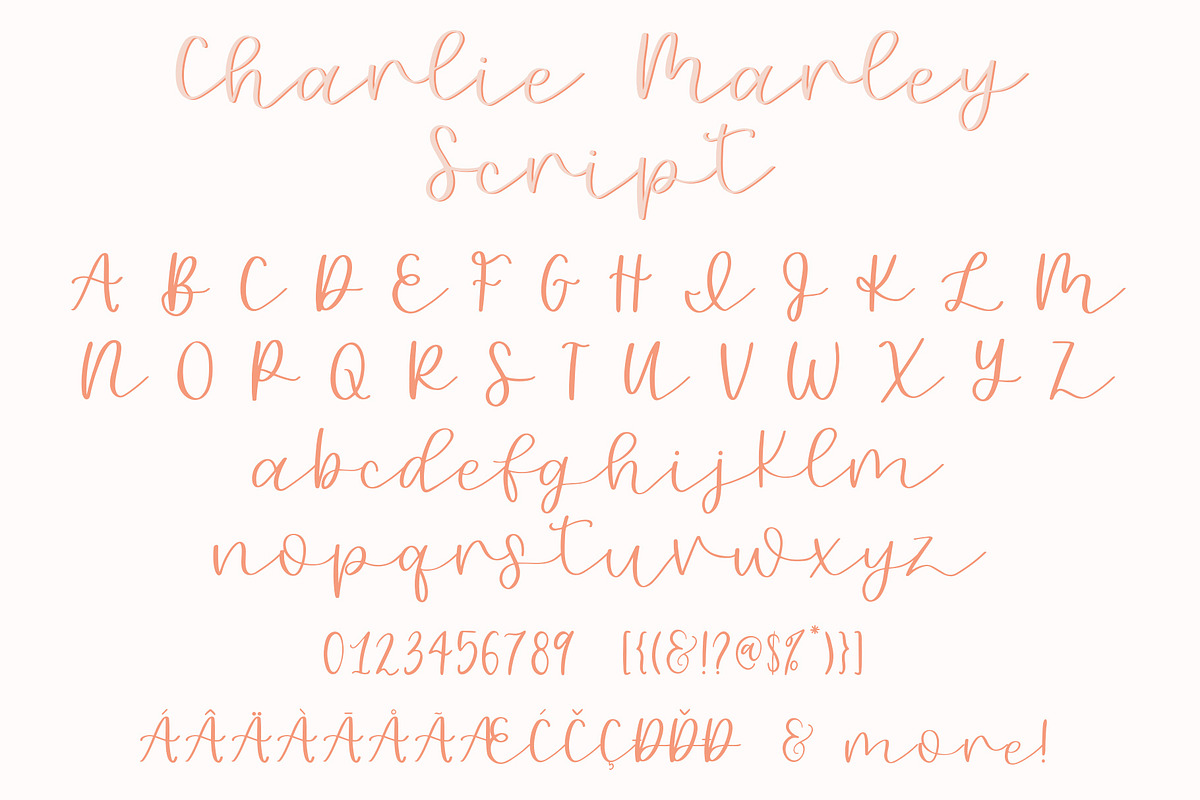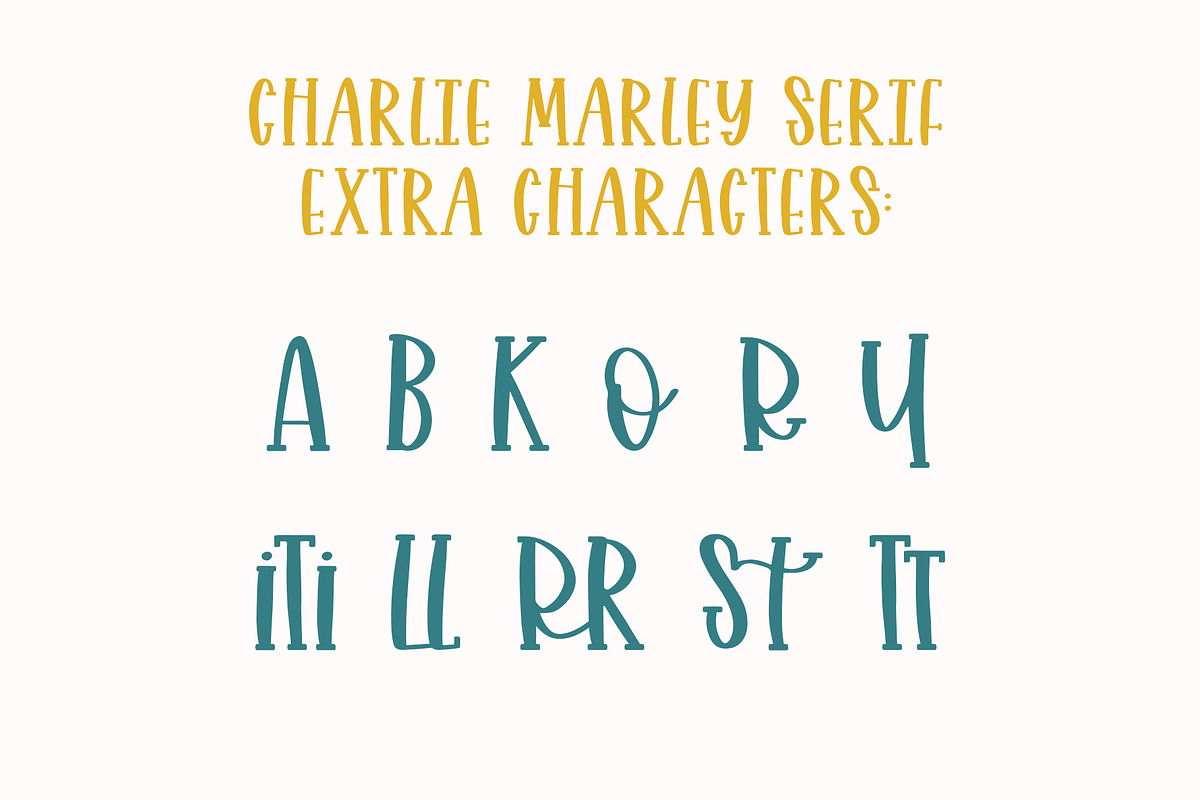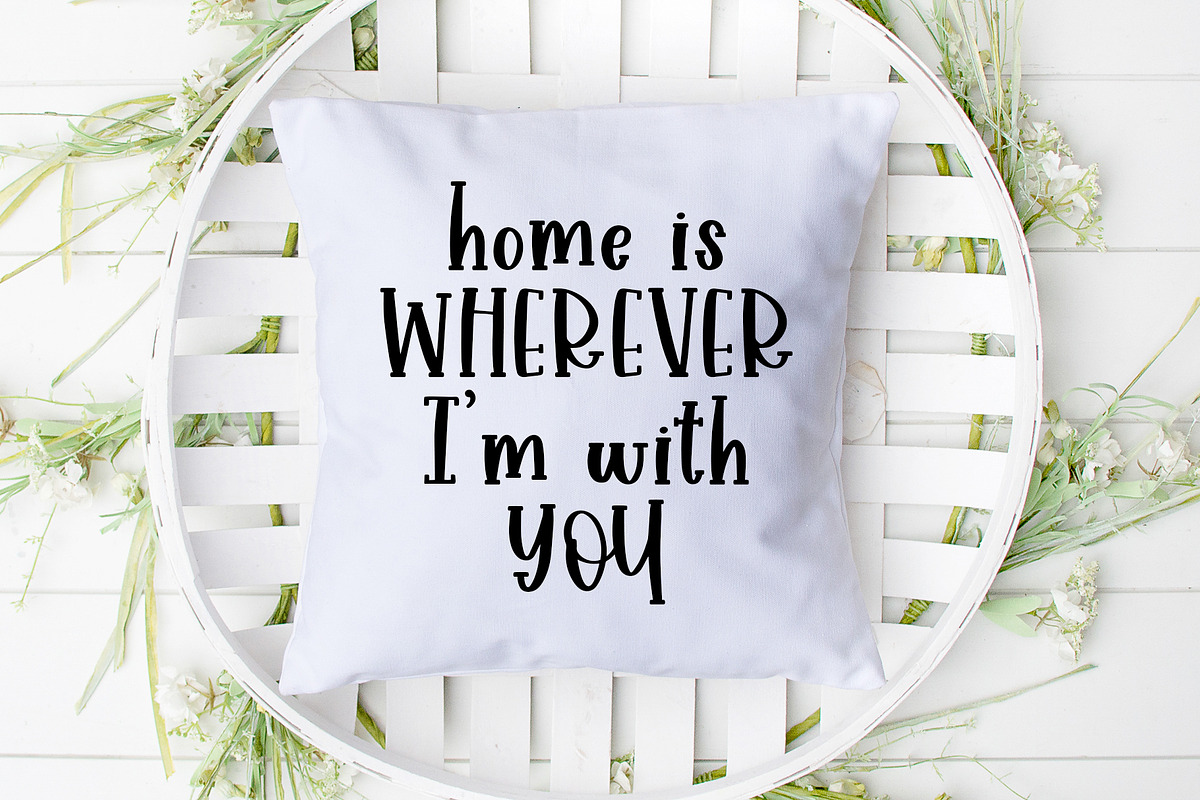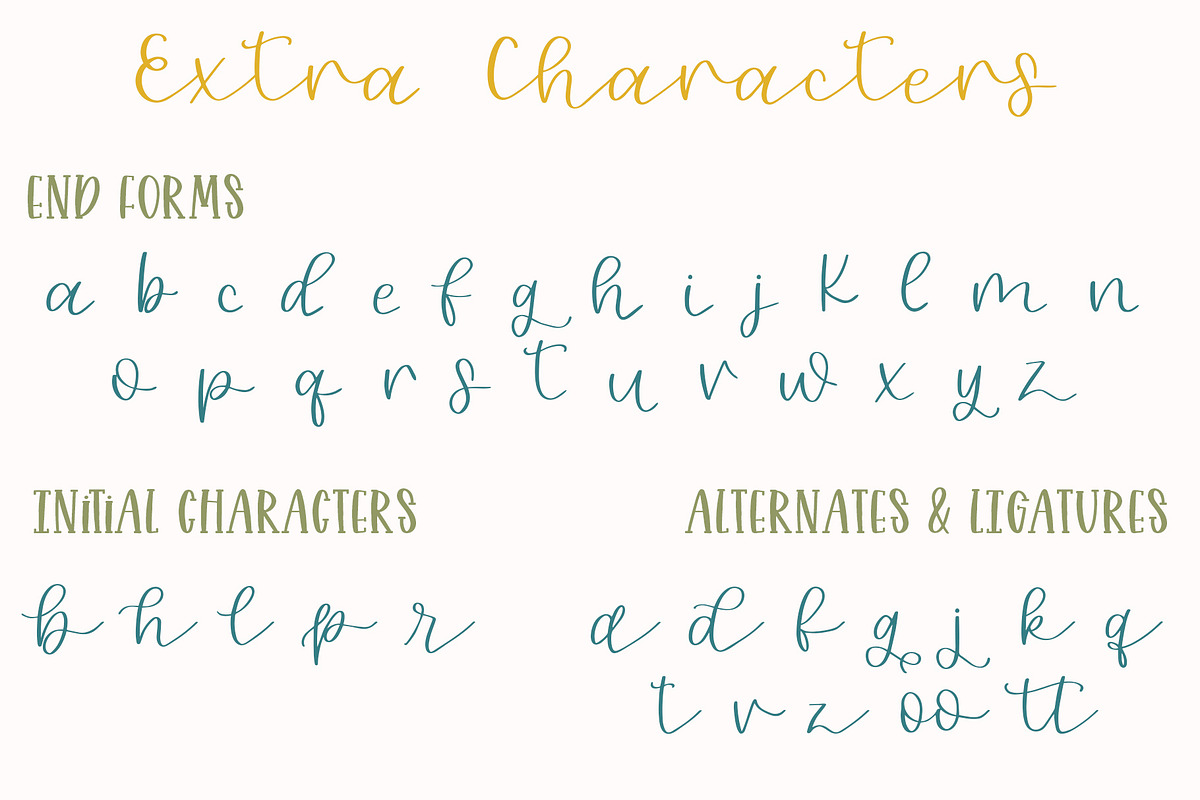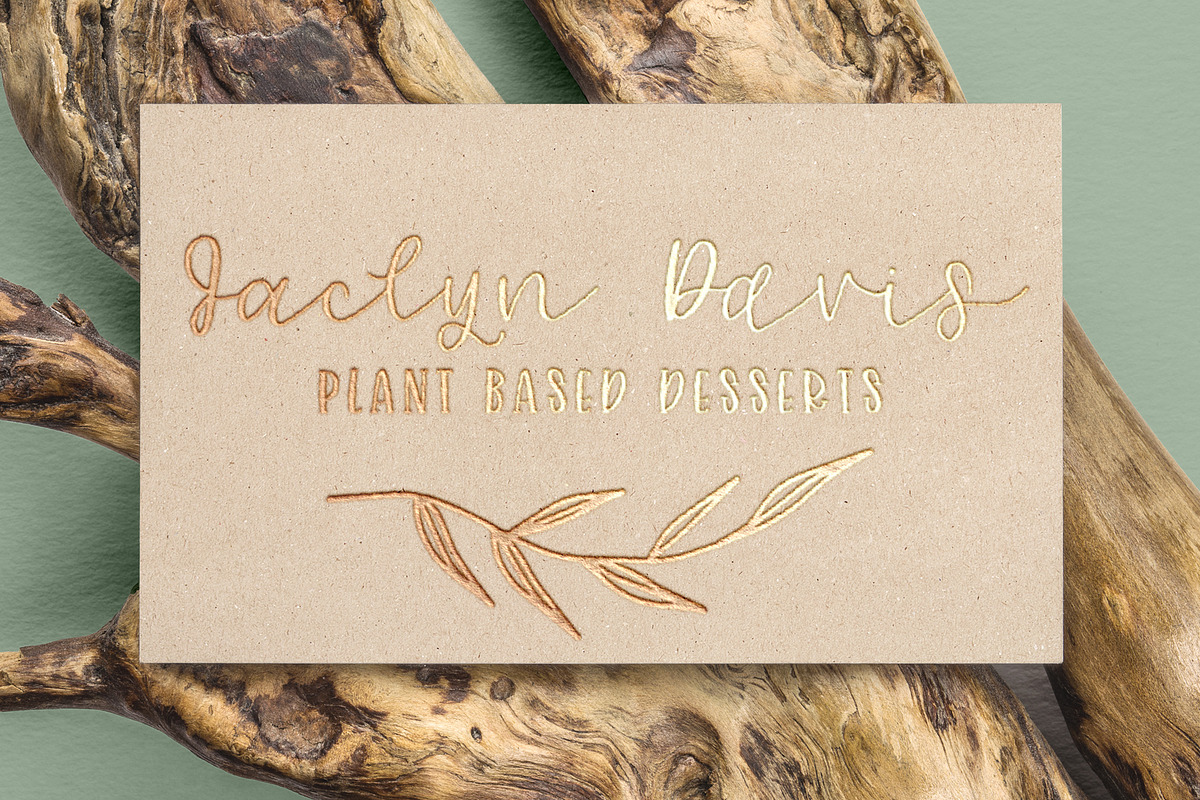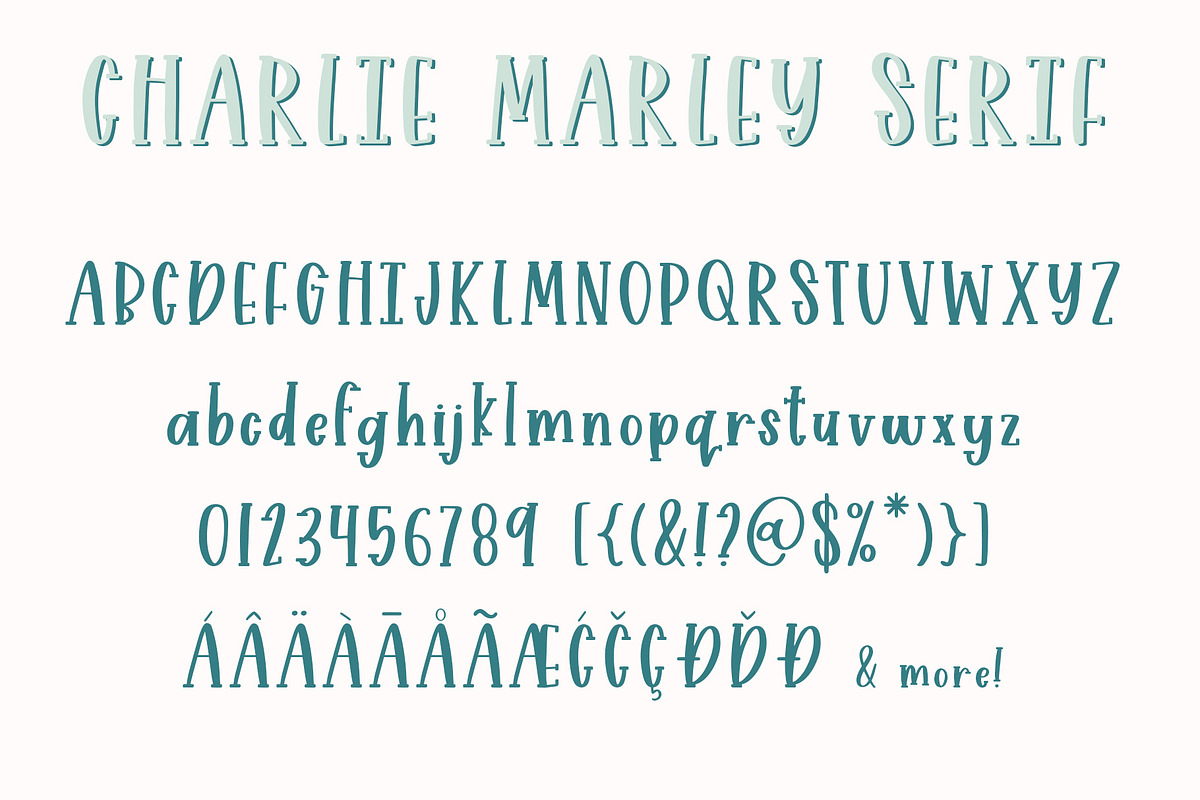
Charlie Marley Script Serif Duo
September of 2019, my best friend Charlie was diagnosed with cancer. He was only supposed to have a few days left in him. So what did I do to cope with the pain while sitting next to him? I started lettering a new font to honor him. But then my ray of sunshine, came around and he kept on fighting. He's made it 7 months longer than any vet expected, so I'm releasing this font on his birthday.
Charlie Marley {the font} is a serif and script font duo that balance each other well, but are also great standalone fonts. The serif is more masculine while the script is very delicate.
Charlie Marley Script Features:
- Upper and lowercase a-z
- 0-9 numbers, symbols, and punctuation
- Over 100 multilingual characters.
- 26 end forms
- 5 initial characters
- 10 alternate characters
- 2 ligatures
Charlie Marley Serif Features:
- Upper and lowercase a-z
- 0-9 numbers, symbols, and punctuation
- Over 100 multilingual characters.
- 6 alternate characters
- 5 ligatures